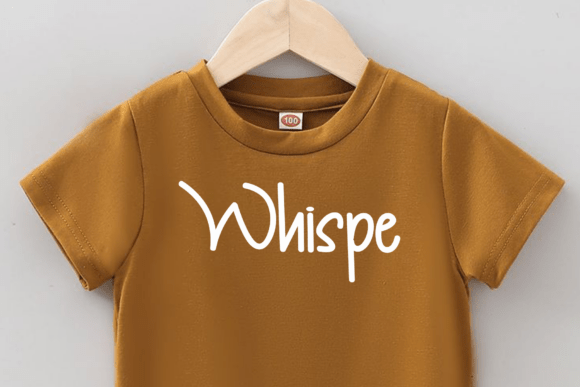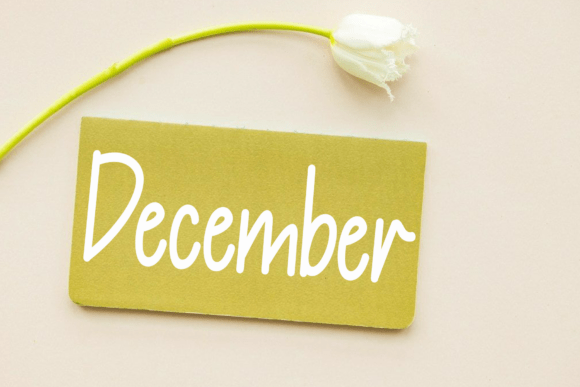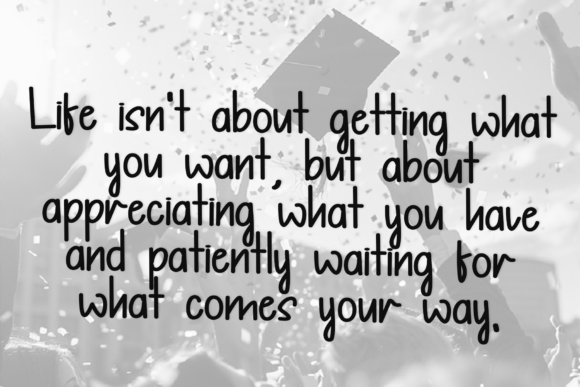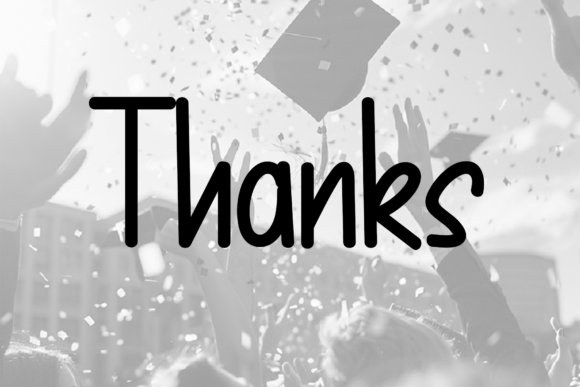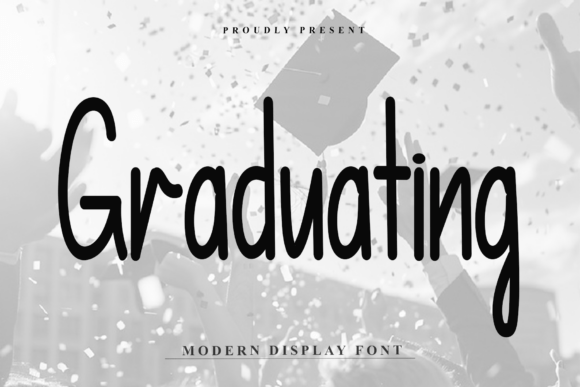
Introducing Graduating Font: The Epitome of Modern Minimalism
In the world of typography, few fonts manage to strike a balance between professionalism and approachability. Graduating Font, a sleek and monolinear handwritten style, is one such typeface that has captured the essence of modern minimalism. With its tall, slender characters and soft curves, Graduating Font is an excellent choice for designers and crafters looking to add a touch of elegance to their work.
Characteristics of Graduating Font
As a Black Home typeface, Graduating Font features a unique blend of casual handwriting and high-end editorial design. Its airy and clean nature ensures that it doesn’t overwhelm your layout, making it perfect for a variety of applications, including:
• Interior design branding: Add a touch of sophistication to your branding with Graduating Font’s sleek and modern aesthetic.
• Real estate logos: Stand out in the competitive real estate market with a logo that exudes professionalism and approachability.
• Contemporary lifestyle magazines: Elevate your publication’s design with a font that embodies modern minimalism.
Graduating Font is more than just a typeface – it’s a versatile tool for any designer looking to add a human yet polished touch to their work. Its applications are endless, and it can be used for:
• Product packaging: Add a touch of elegance to your product packaging with Graduating Font’s sleek and modern design.
• Signature-style watermarks: Protect your work with a watermark that exudes professionalism and sophistication.
• Elegant website overlays: Elevate your website’s design with a font that embodies modern minimalism.
• Personal branding: Establish your personal brand with a typeface that is both unique and professional.
• Photography watermarks: Add a touch of elegance to your photography with a watermark that exudes sophistication.
• Luxury wedding stationery: Make your wedding stationery stand out with a font that embodies luxury and elegance.
• Editorial design: Elevate your editorial design with a typeface that is both modern and sophisticated.
Pairing Graduating Font with Other Typefaces
One of the key benefits of Graduating Font is its ability to pair well with other typefaces. For a dynamic contrast, pair it with a bold sans-serif font to create a unique and professional look. This versatility makes it an excellent choice for designers who want to experiment with different typography combinations.
Why Choose Graduating Font?
In a world where typography plays a crucial role in design, Graduating Font stands out as a unique and professional typeface. Here are just a few reasons why designers and crafters should consider adding it to their toolkit:
• Modern minimalism: Graduating Font embodies the principles of modern minimalism, making it perfect for designers who want to create clean and elegant designs.
• Professionalism: With its sleek and sophisticated design, Graduating Font exudes professionalism and approachability.
• Versatility: From product packaging to editorial design, Graduating Font is a versatile typeface that can be used for a wide range of applications.
• Elegance: Add a touch of elegance to your design with Graduating Font’s sleek and modern aesthetic.
In conclusion, Graduating Font is a unique and professional typeface that embodies the principles of modern minimalism. With its sleek and sophisticated design, it’s perfect for designers and crafters looking to add a touch of elegance to their work. Whether you’re working on interior design branding, real estate logos, or editorial design, Graduating Font is a versatile tool that can help you achieve your design goals.